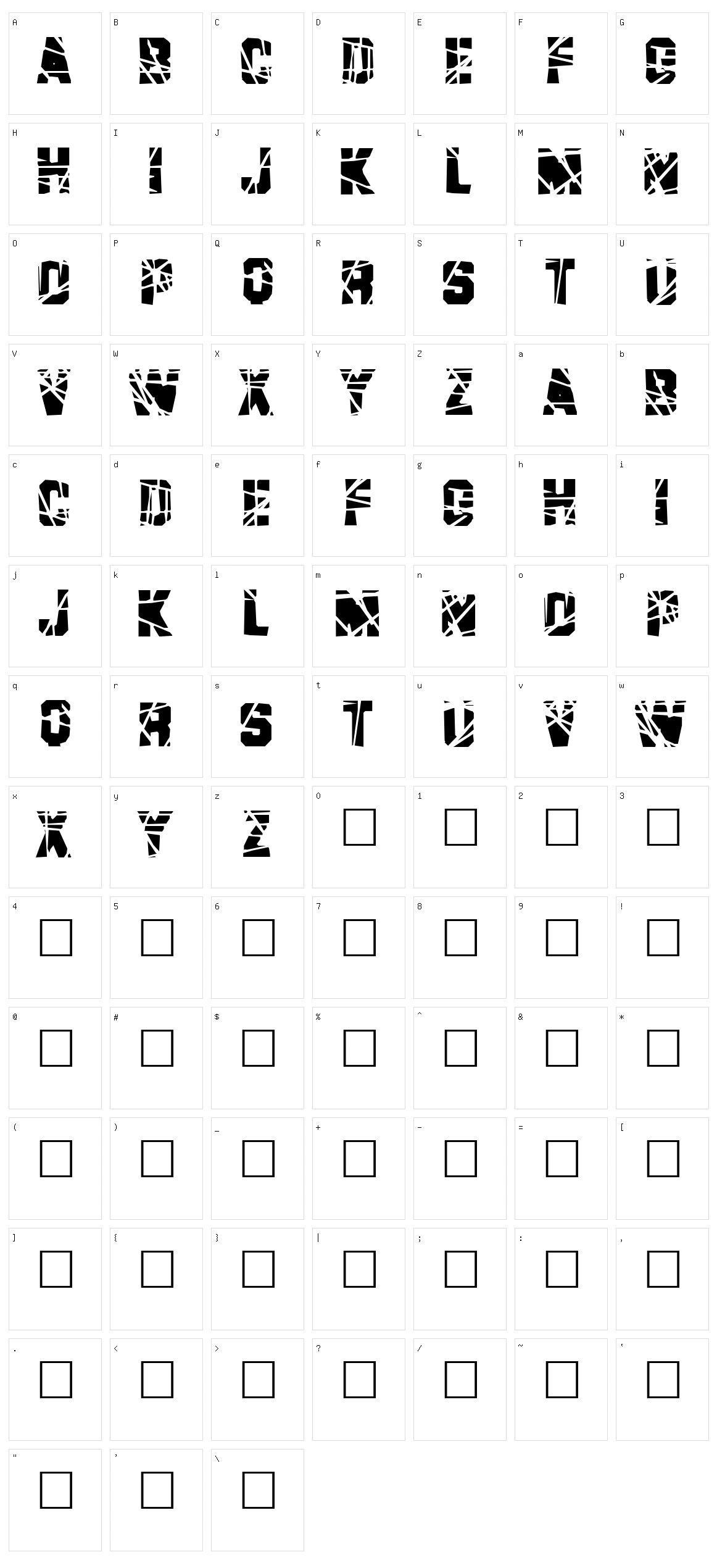
The free font Brad is carefully designed by Superfunk, showcasing a thoughtful balance of creativity and usability and falls under the Distorted font style. When you download the ZIP file, it contains only 7.04 KB of font files, making it lightweight and quick to download. Please review the license details below to understand permitted usage and distribution rights. If license information is not available, we recommend using this font for personal projects only or contacting the author directly for commercial usage permissions.